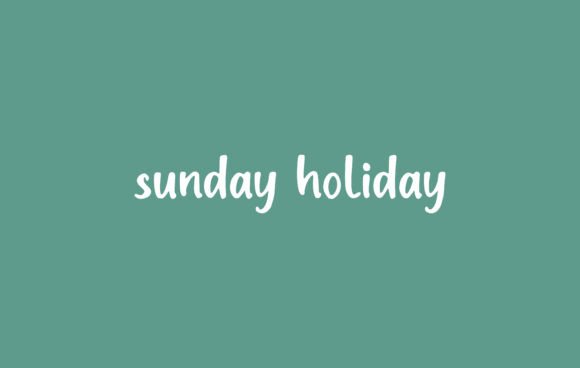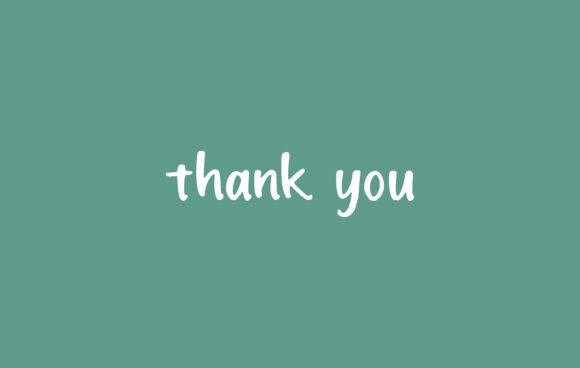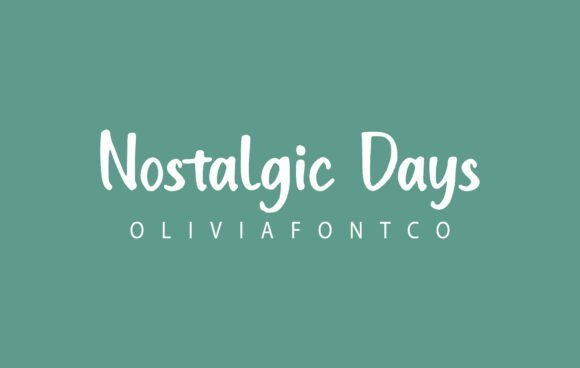
Introduction to Nostalgic Days Font
Nostalgic Days font is an authentic handwritten font with a romantic touch.
Why Choose Nostalgic Days Font?
Nostalgic Days Font offers exceptional quality and versatility, making it a valuable addition to your design toolkit. Whether you’re creating for personal projects or commercial use, Nostalgic Days Font delivers professional results.